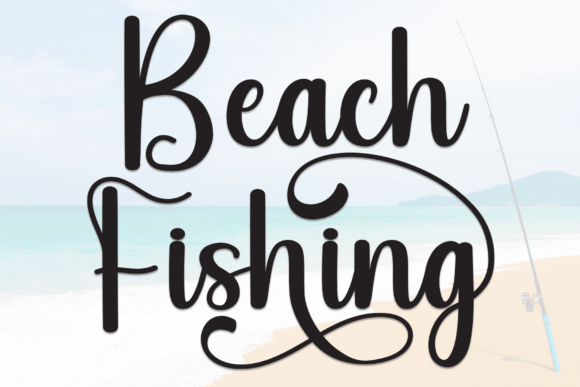
Discover the Charm of Beach Fishing Font: Elevate Your Designs with Elegance
Are you on the lookout for a font that can add a touch of elegance and sophistication to your designs? Look no further than the Beach Fishing Font, a beautiful handwritten font that is sure to capture your heart. With its incredibly distinct and timeless style, this font is perfect for designers and crafters who want to create spectacular designs that stand out from the crowd.
What Makes Beach Fishing Font So Special?
Beach Fishing Font is a neat and beautiful handwritten font that is described by an elegant touch, making it perfect for a wide range of projects. Whether you’re working on a logo, branding materials, or marketing collateral, this font is sure to add a touch of sophistication and refinement. Its unique and distinctive style is sure to set your designs apart from the rest, making it a great choice for designers who want to create something truly special.
Key Features of Beach Fishing Font
- Handwritten Elegance: Beach Fishing Font is a handwritten font that exudes elegance and sophistication. Its smooth, flowing lines and curves make it perfect for designs that require a touch of refinement.
- Distinctive Style: This font has an incredibly distinct and timeless style that is sure to set your designs apart from the rest. Its unique character is perfect for designers who want to create something truly special.
- Versatile: Beach Fishing Font is a versatile font that can be used for a wide range of projects, from logos and branding materials to marketing collateral and more.
- Easy to Read: Despite its elegant and refined style, Beach Fishing Font is easy to read, making it perfect for designs that require a clear and concise message.
How to Use Beach Fishing Font in Your Designs
Beach Fishing Font is a versatile font that can be used in a wide range of designs, from logos and branding materials to marketing collateral and more. Here are a few ways you can use this beautiful font in your designs:
- Logos and Branding Materials: Use Beach Fishing Font to create elegant and sophisticated logos and branding materials that reflect your brand’s values and personality.
- Marketing Collateral: Use this font to create eye-catching marketing collateral, such as brochures, flyers, and posters, that grab attention and communicate your message clearly.
- Web Design: Use Beach Fishing Font to create beautiful and elegant web designs that reflect your brand’s personality and style.
- Crafting and DIY Projects: This font is also perfect for crafters and DIY enthusiasts who want to add a touch of elegance and sophistication to their projects, such as handmade cards, gift tags, and more.
Tips for Getting the Most Out of Beach Fishing Font
Here are a few tips for getting the most out of Beach Fishing Font:
- Pair it with Other Fonts: Beach Fishing Font pairs well with other fonts, so don’t be afraid to experiment with different font combinations to create a unique and eye-catching design.
- Use it to Create Contrast: Use Beach Fishing Font to create contrast in your design by pairing it with other fonts or design elements.
Beach Fishing Font is a beautiful and elegant handwritten font that is perfect for designers and crafters who want to add a touch of sophistication and refinement to their designs. With its incredibly distinct and timeless style, this font is sure to set your designs apart from the rest. Whether you’re working on a logo, branding materials, or marketing collateral, Beach Fishing Font is a great choice for anyone who wants to create spectacular designs that stand out from the crowd.